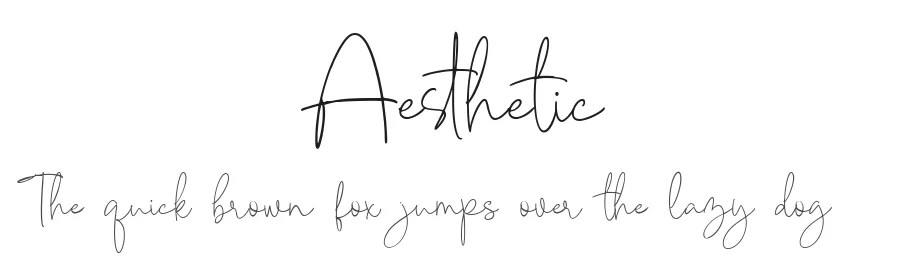
About Bethoman Font
Bethoman Specifications
| Font Family | Bethoman |
| Full Name | Bethoman |
| Glyph Count | 258 glyphs |
| PostScript Name | Bethoman |
| Designer | Glorytype |
Bethoman ships with 2 OpenType features you can switch on in apps that support them (Illustrator, InDesign, Affinity, Figma, CSS font-feature-settings).
Bethoman supports 222 languages.
Bethoman Font is a script font that shines as a display or heading face. Pair it with a clean sans-serif or serif font for body text β the contrast creates a clear hierarchy while the two styles stay balanced and easy to read.